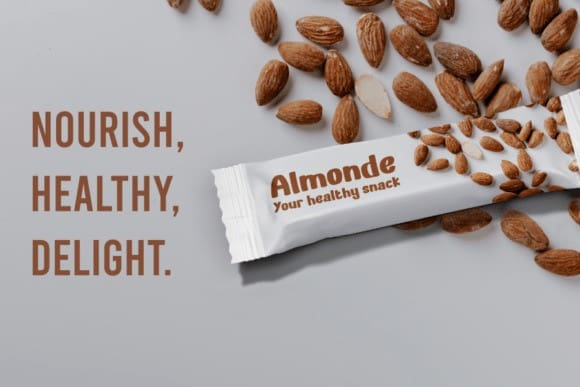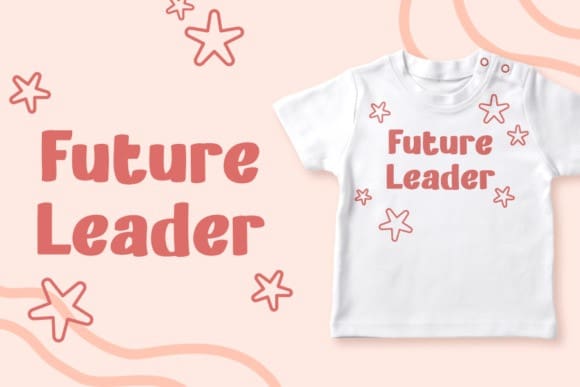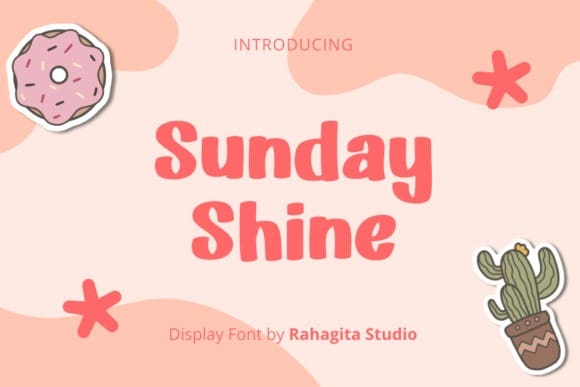
Sunday Shine Font
Sunday Shine Font – Exudes a playful and bold aesthetic, ideal for a variety of crafting needs. Whether you are designing greeting cards, fun posters or engaging social media content, Sunday Shine will bring a playful touch to your creations. Furthermore, SundayShine extends its versatility to packaging design and product branding, making it the perfect choice for conveying a vibrant and memorable identity to your products. Discover the world of SundayShine, where each letter tells a story of bold playfulness, allowing your designs to shine with personality and charm.